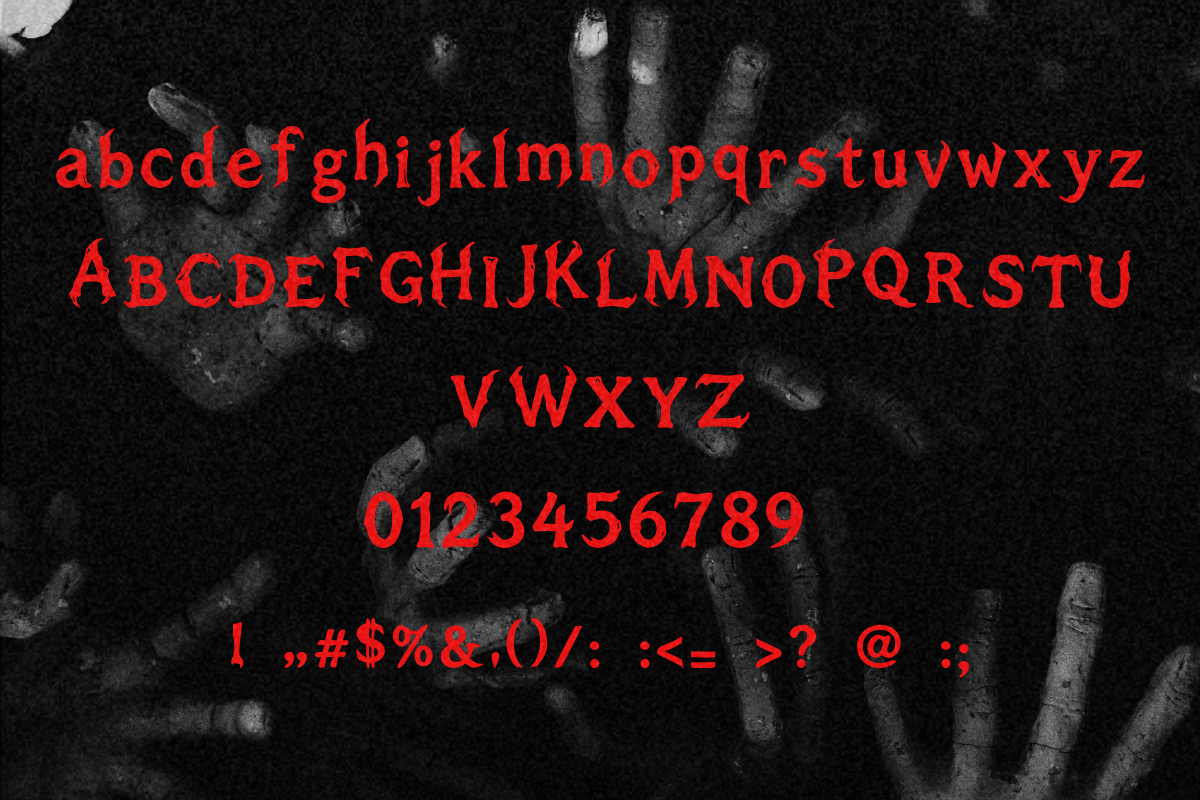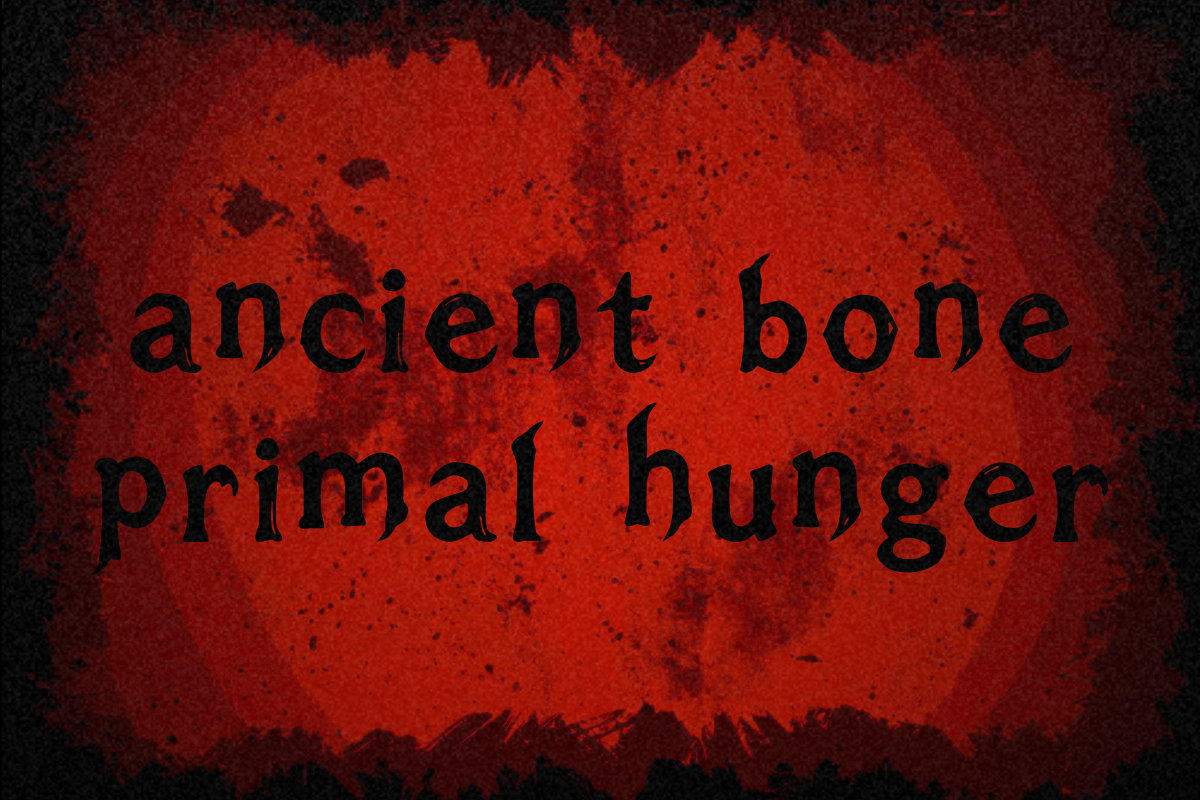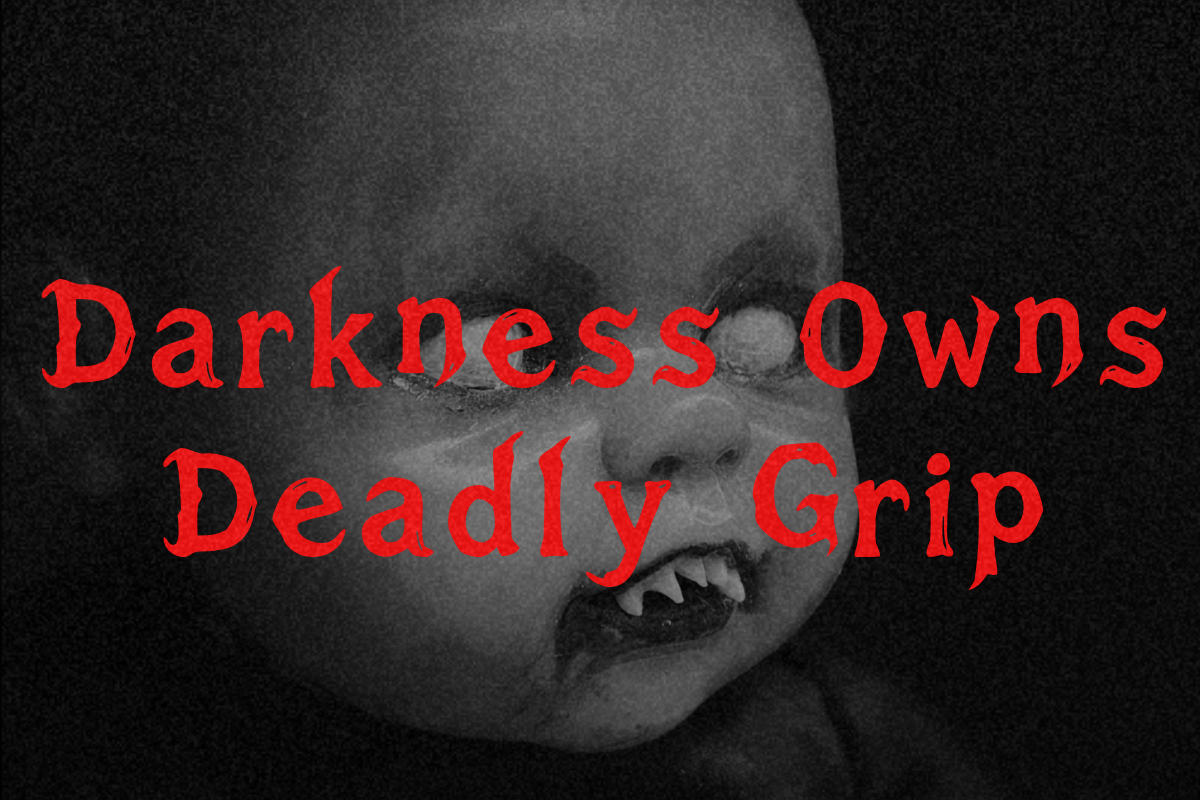
Talonfiend Gothic Horror displayFont
Introducing Talonfiend Gothic — a primal, vicious Halloween display typeface forged from the curved talons and barbed bone crests of mythological demons and prehistoric beasts. Engineered for maximum visual impact, each character surges with predatory momentum, making your headlines, logos, and posters leap off the page with terrifying force.
Fierce beastly silhouette with sweeping talon spurs and sharp horn crests that demand attention from across the room.
Largest character repertoire in the collection with 94 complete glyphs — full Uppercase A–Z, Lowercase a–z, Numbers 0–9, and an expansive punctuation library.
Flawless mechanical balance between vertical stem weight and aggressive talon spurs for stable typesetting.
Full Character Repertoire: 94 glyphs total
Uppercase Alphabet: A B C D E F G H I J K L M N O P Q R S T U V W X Y Z
Lowercase Alphabet: a b c d e f g h i j k l m n o p q r s t u v w x y z
Numerals: 0 1 2 3 4 5 6 7 8 9
Punctuation & Symbols: Complete set of 32 punctuation marks, brackets, and math symbols